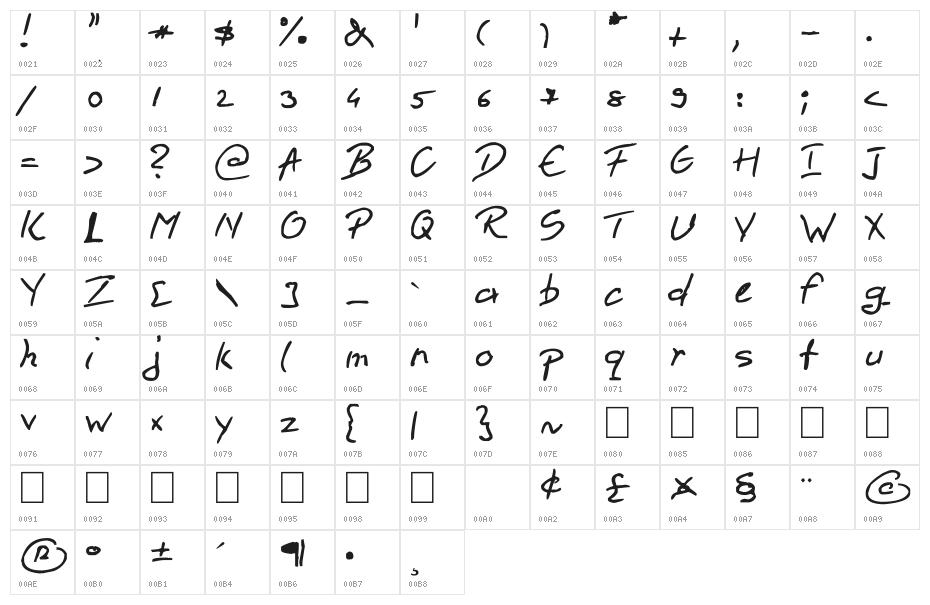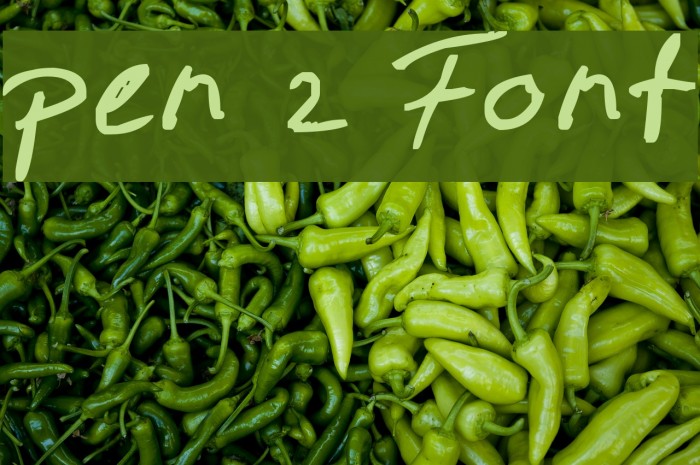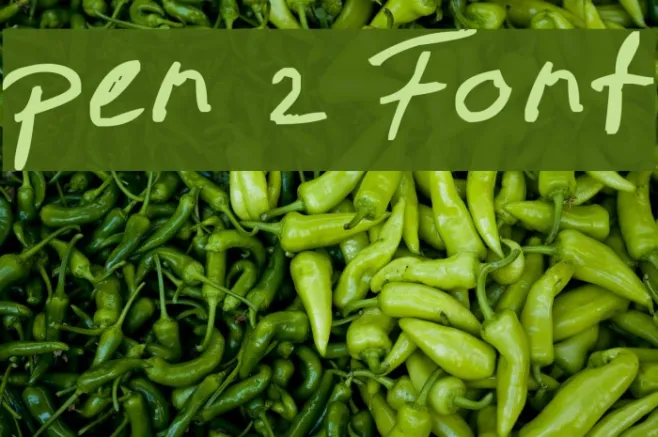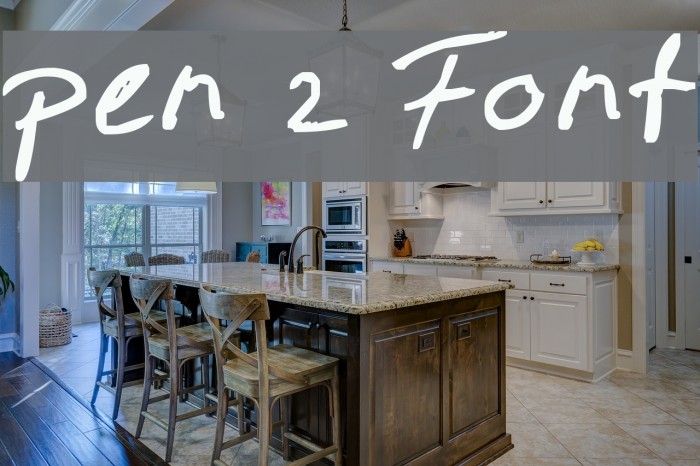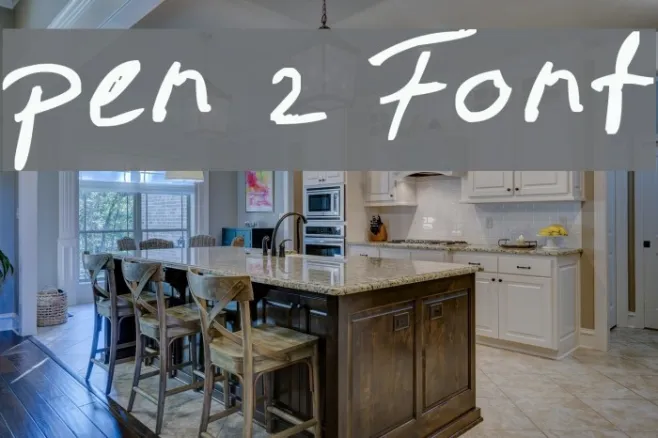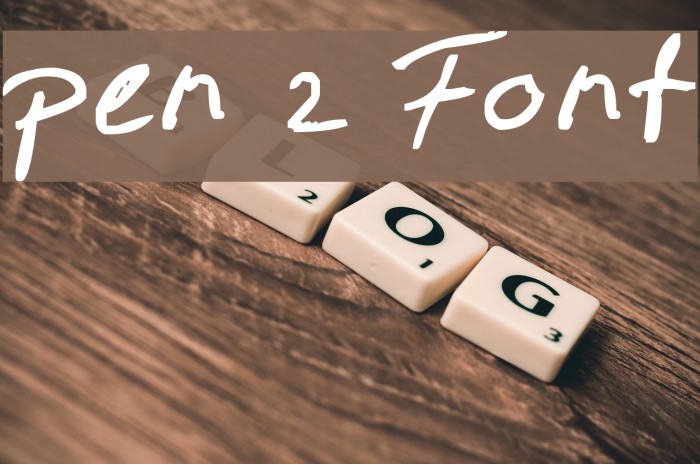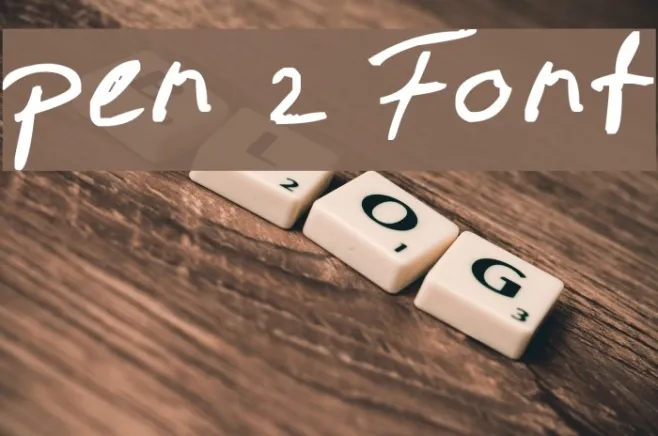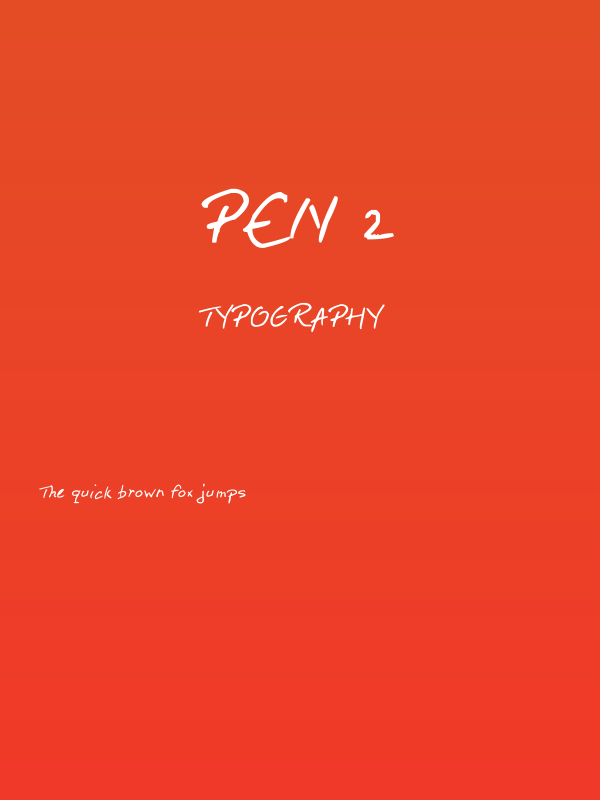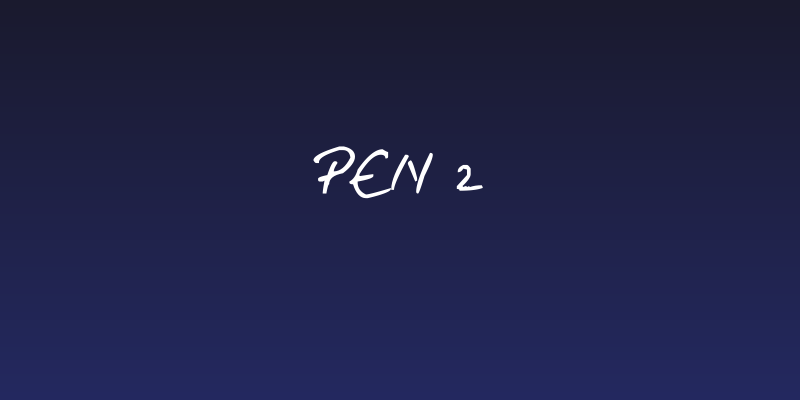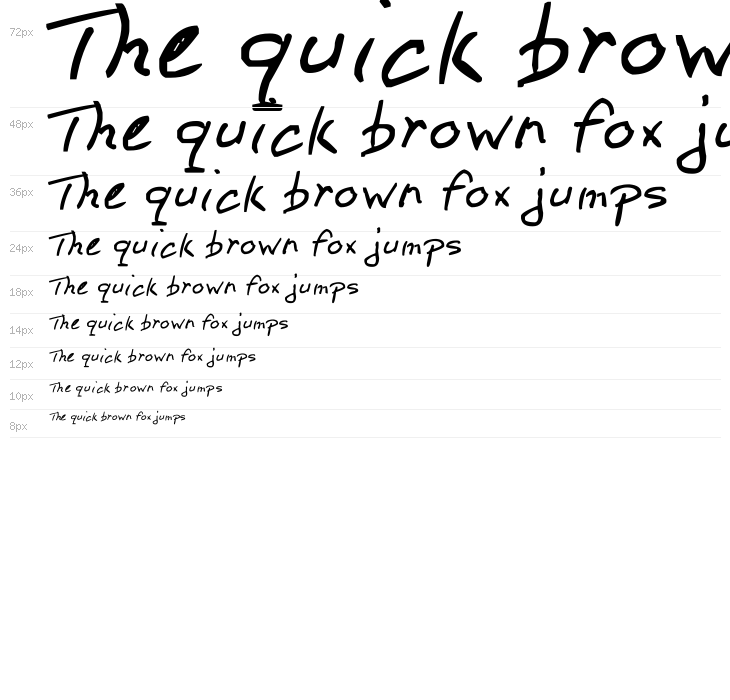
pen 2 Font
pen 2 Description
This font exhibits a dynamic and energetic handwritten style, characterized by its fluid strokes and slightly irregular letterforms. The uppercase letters are bold and assertive, with a slight slant that adds a sense of movement. The lowercase letters maintain a consistent flow, enhancing the casual and informal appearance. Numbers are clear and legible, while special characters retain the playful and spontaneous feel of the font. The overall design is reminiscent of quick, expressive handwriting, making it ideal for projects that require a personal touch.
Overall StyleCasual, Expressive
Use CaseLogos, Invitations, Personal Branding
Proposed ProjectsIdeal for personal branding, casual invitations, greeting cards, and creative projects that benefit from a handwritten touch.